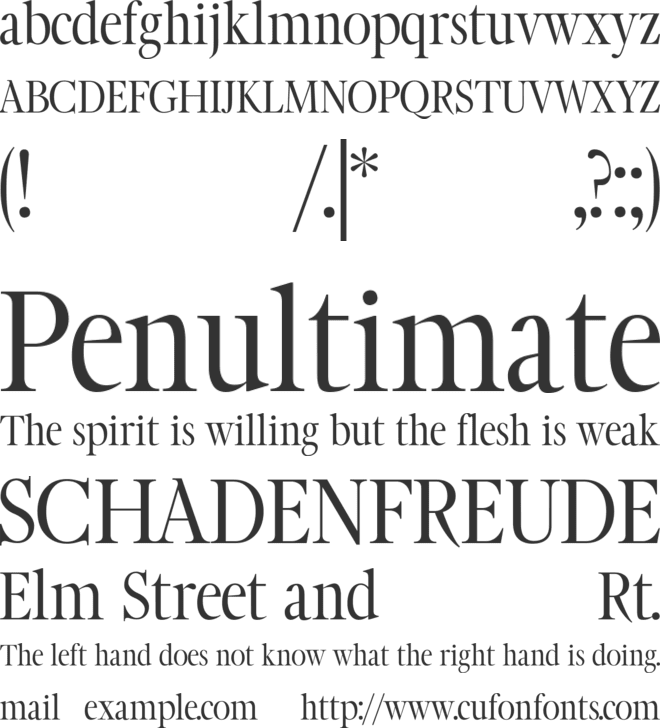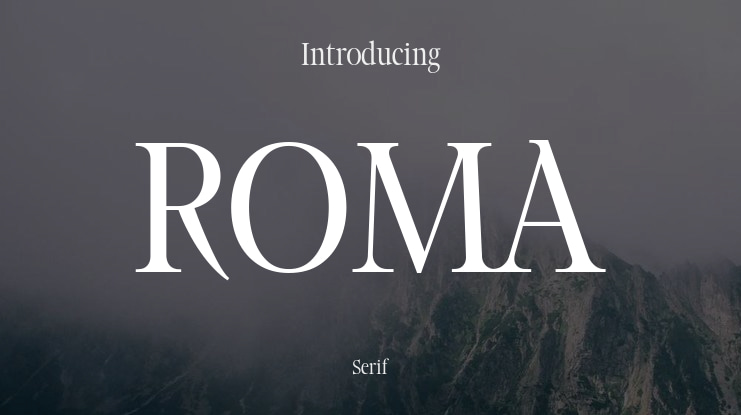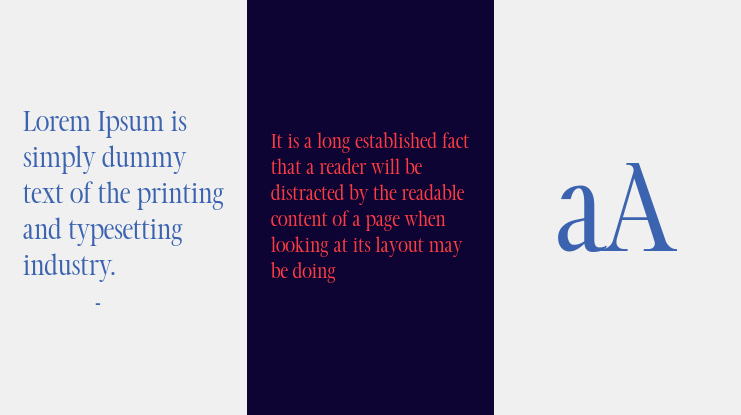
ROMA Font
🎨 Font Name: ROMA by Minimalist Art Studio
🎨 Font Description: Roma is a minimalist classic serif typeface with small caps, multilingual support, and timeless elegance—perfect for branding, editorial design, wedding stationery, and upscale digital projects.
✔ Complete Latin set + multilingual diacritics
✔ Alternates, stylistic sets & ligatures
✔ Numbers, small caps, and extended punctuation
✔ Bonus italics and family styles